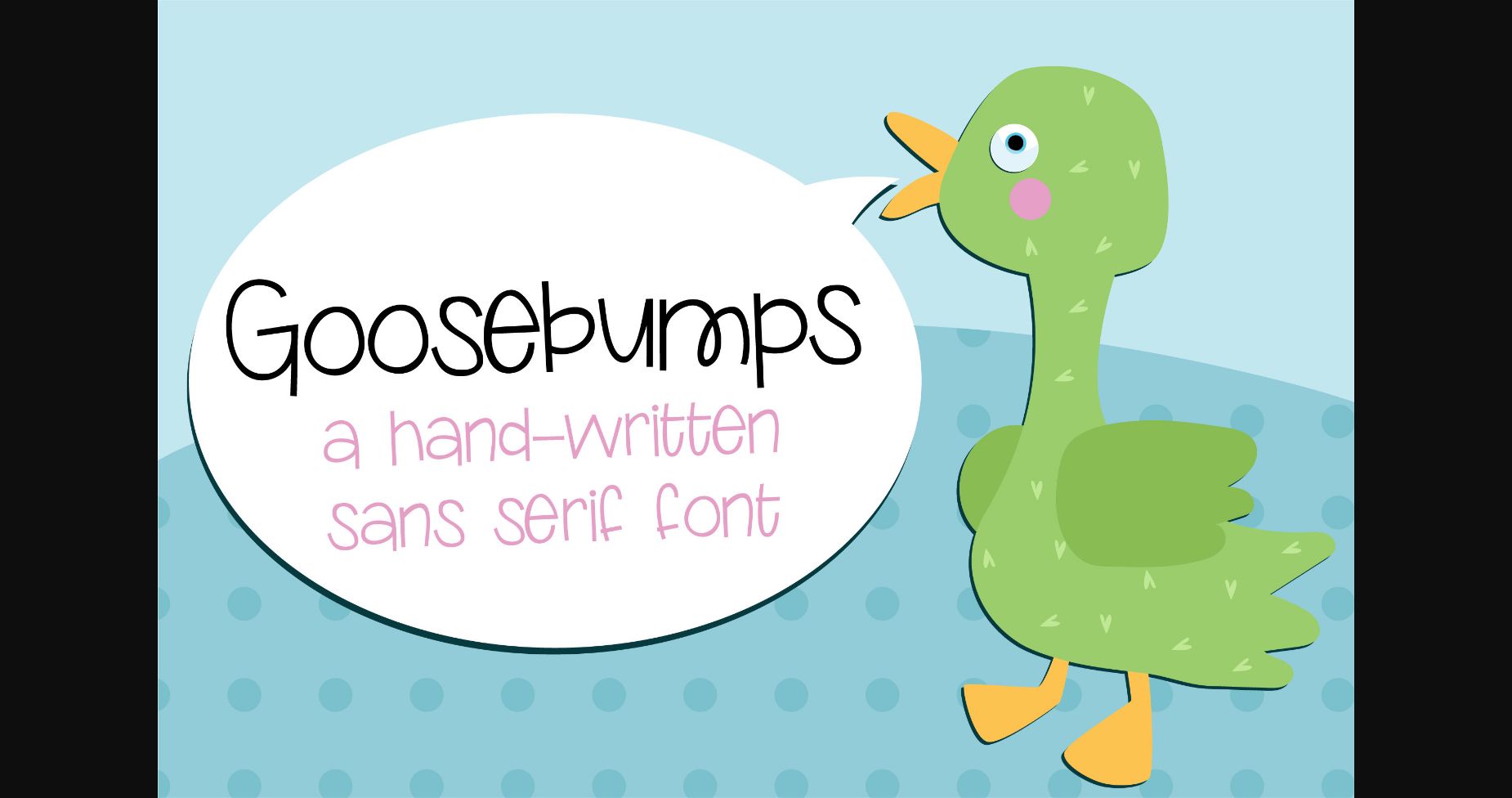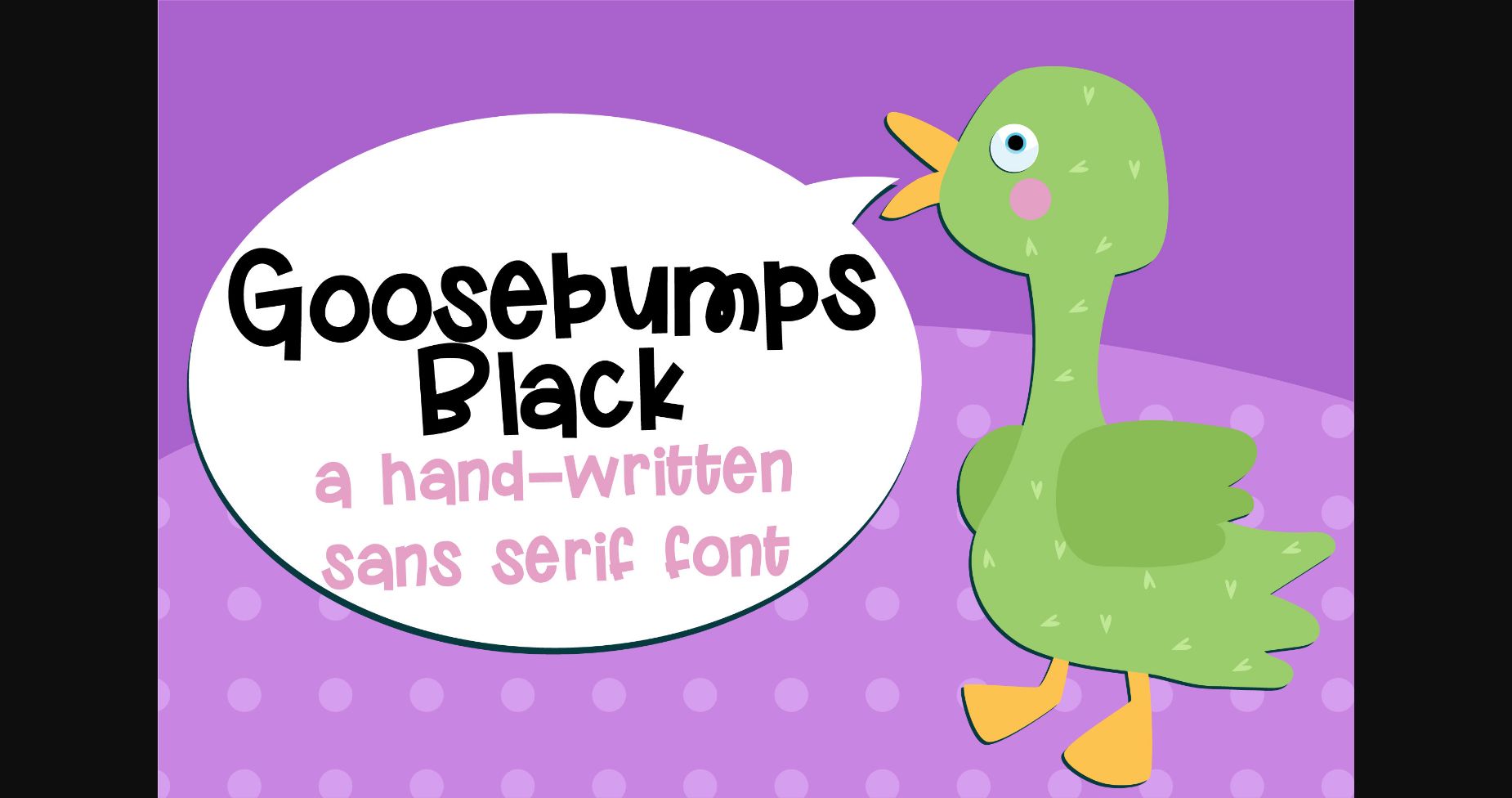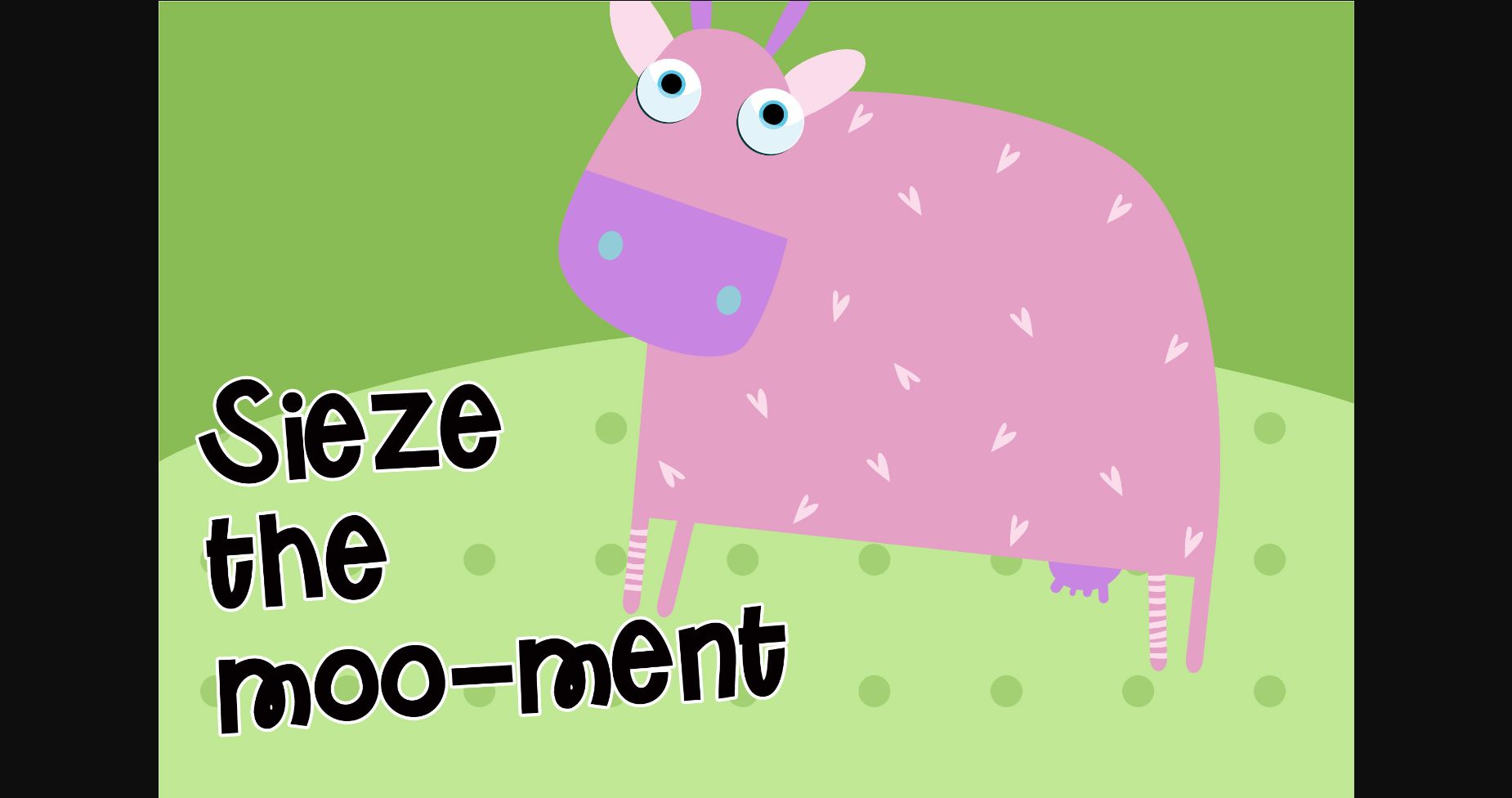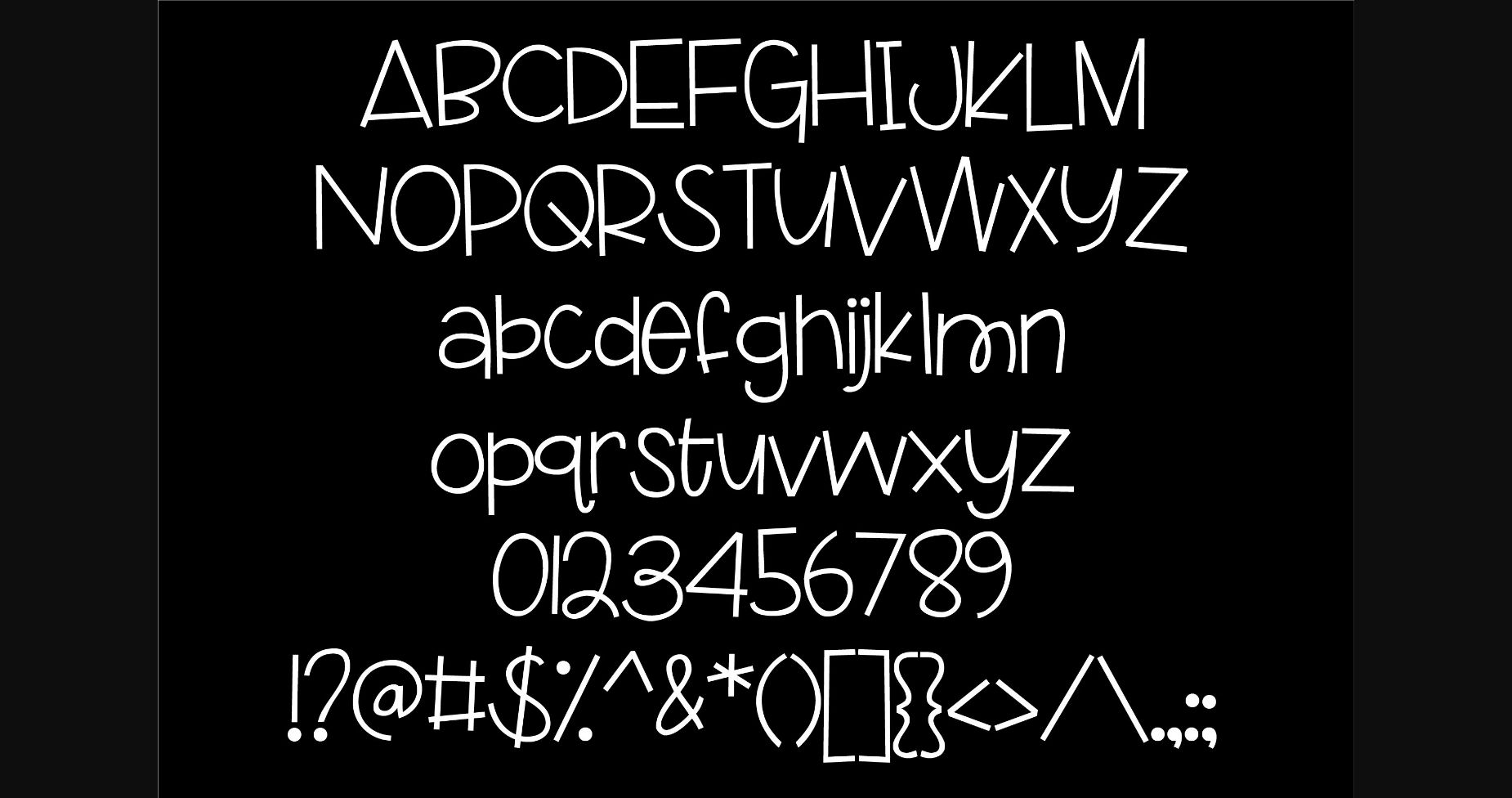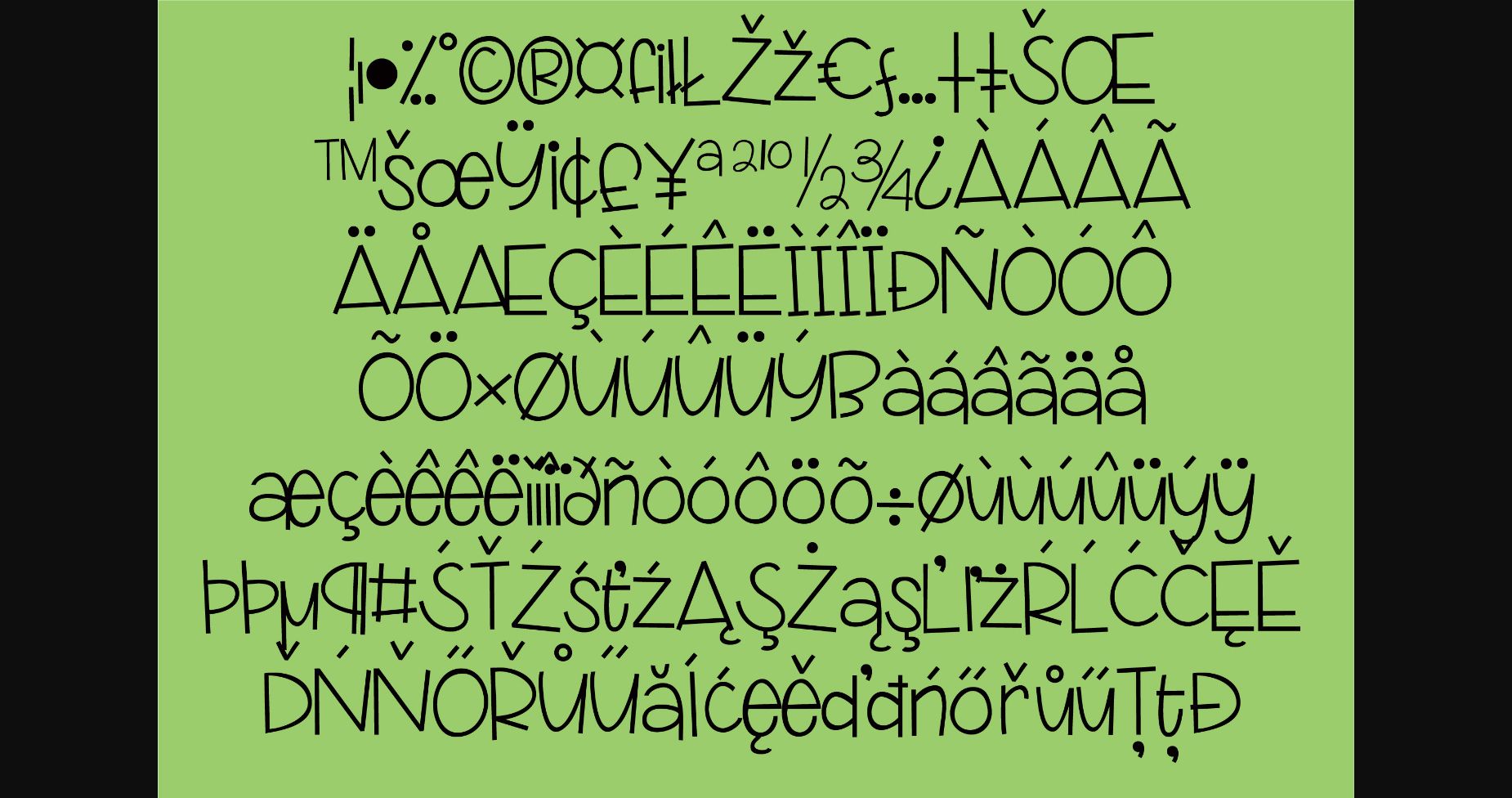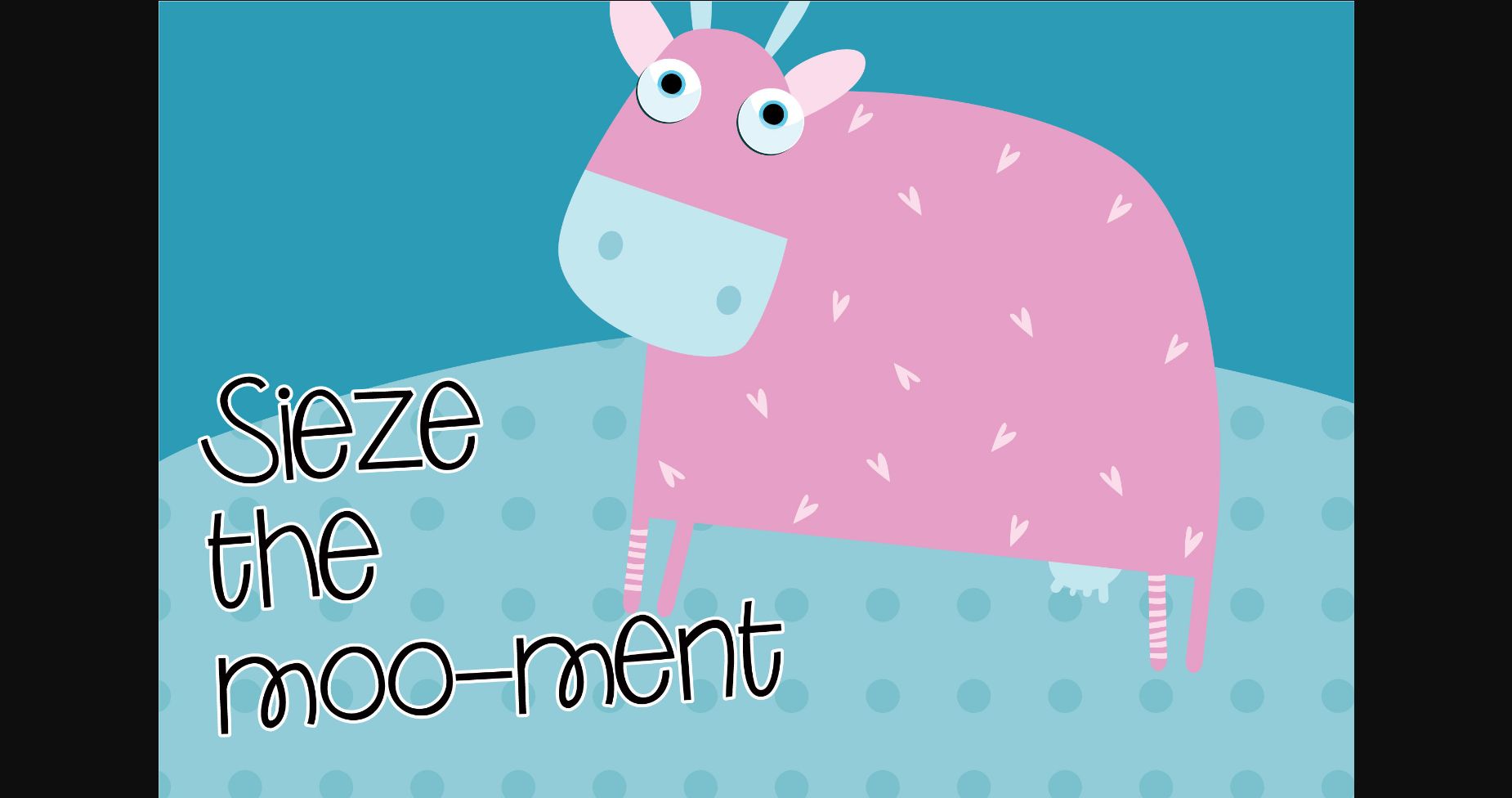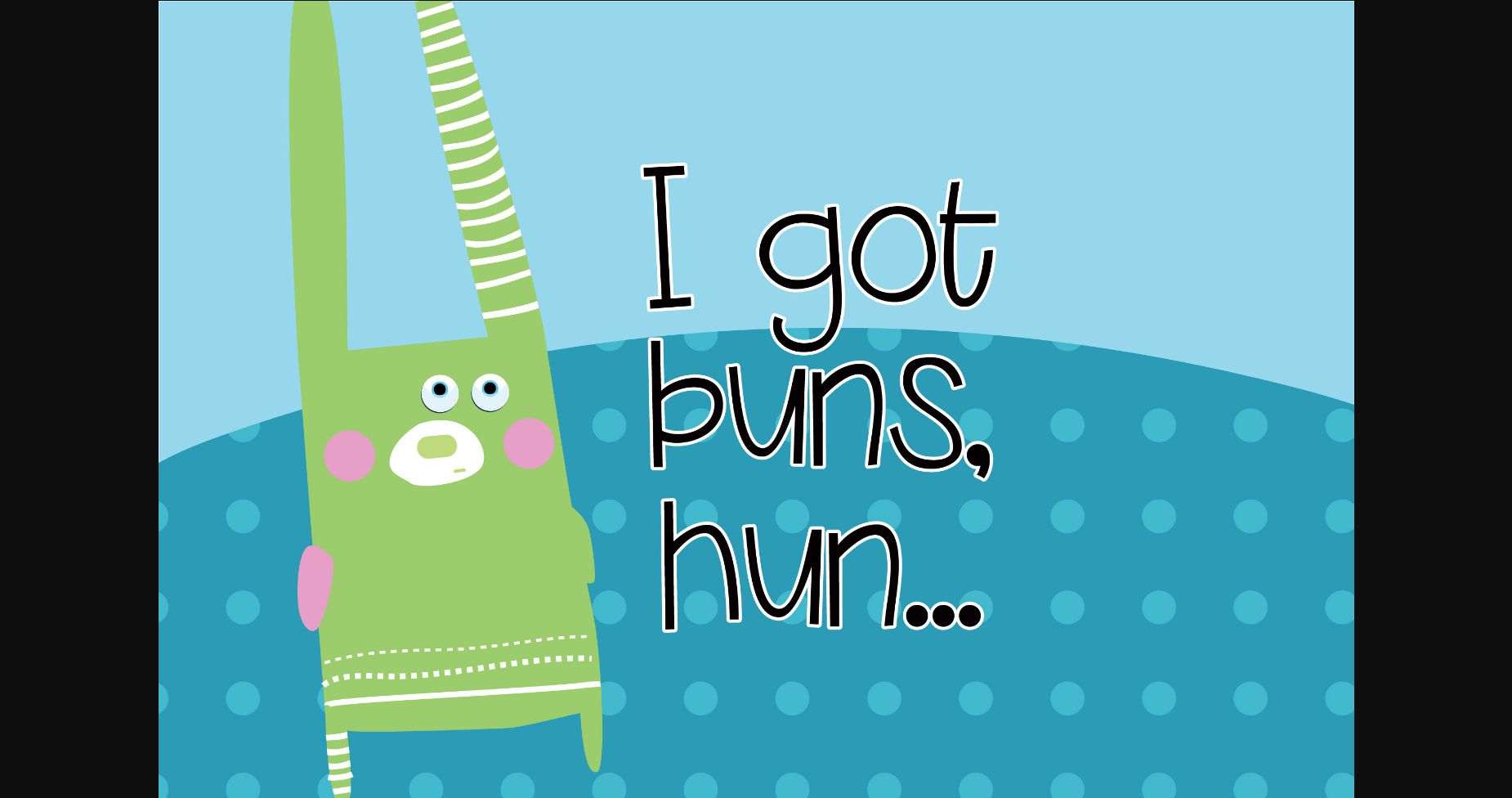
About Goosebumps Font
Goosebumps is a cute sans serif font, that is youthful and whimsical and comes with a very adaptable style. It embodies playfulness and authenticity and is the perfect choice for any children activity or school project.